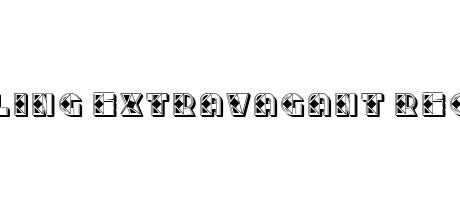
Spelling
Spelling Extravagant Regular is a bold display typeface. Its block letters are adorned with intricate, geometric patterns reminiscent of Art Deco or stained glass. The black and white diamond shapes within each character add a touch of opulence and visual texture, creating a striking and luxurious feel. The overall effect is sophisticated yet playful.
Spelling Regular
Spelling Filled Regular
Spelling Extravagant Regular